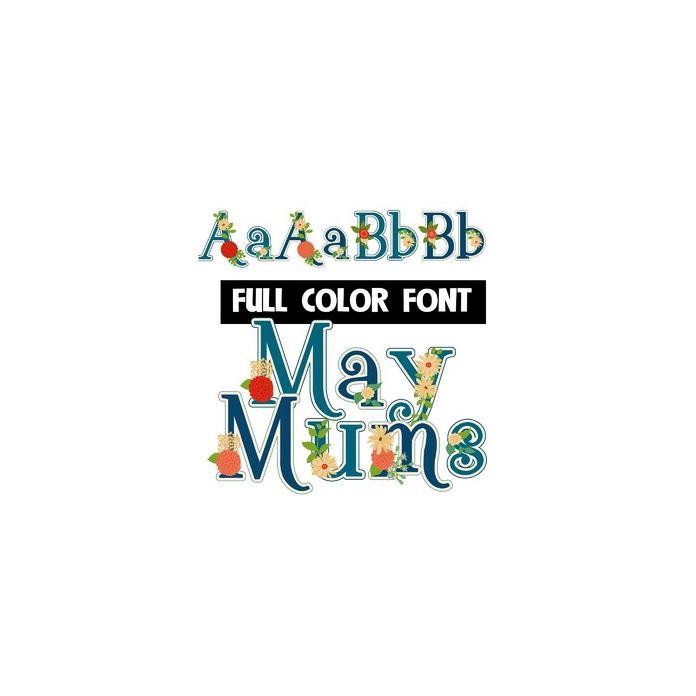
This full-color font features pale blue, orange, red, and yellow flowers and lettering. There is an alt version upper and lowercase that you can access through Silhouette's glyph map.